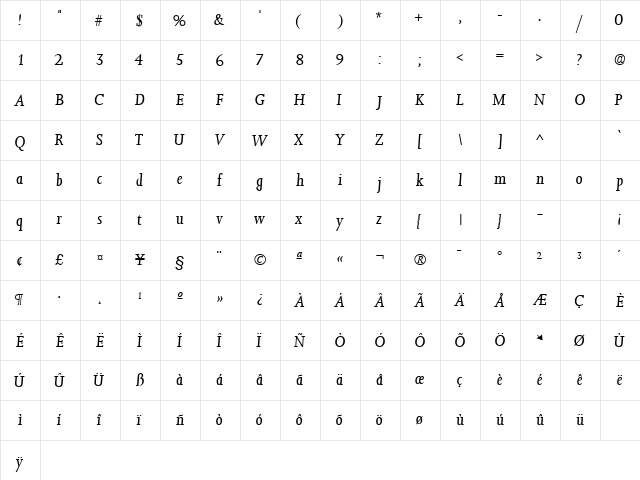
ConfirmaSSK Italic
Design Context for ConfirmaSSK Typeface
ConfirmaSSK offers clean, dependable letterforms without strong stylistic allegiance, making it a practical choice for designers who need flexibility. The slanted form adds forward momentum and visual energy.
Pro Tip: Use ConfirmaSSK for emphasis, pull quotes, and subheadings where its slanted energy can add rhythm to the layout.